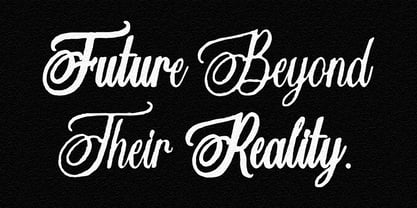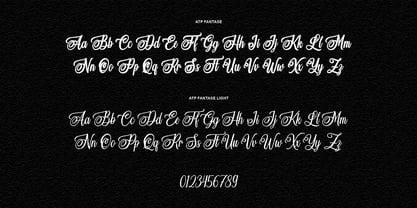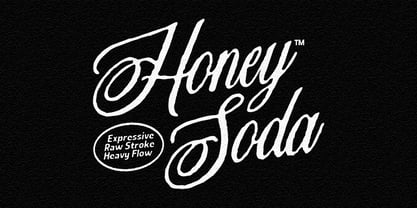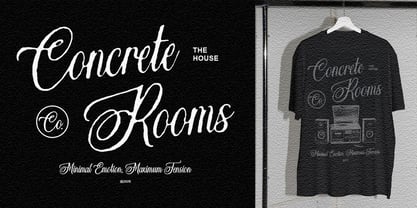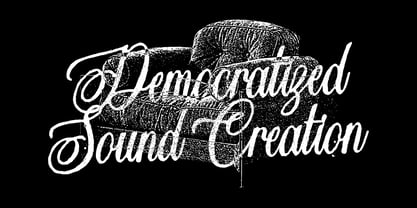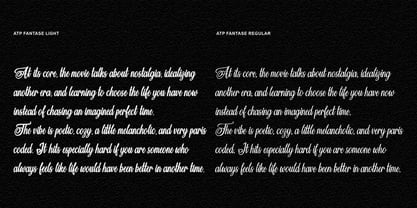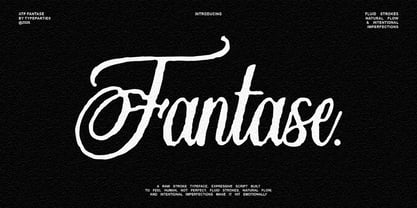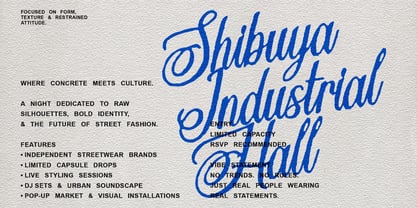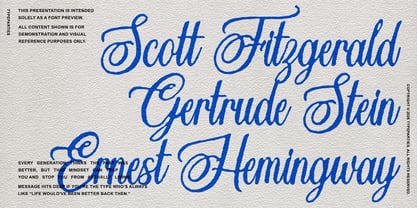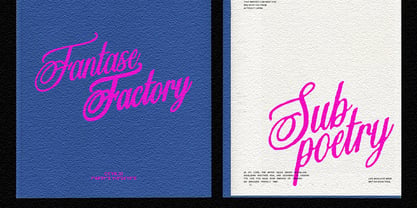
ATP Fantase
The ATP Fantase Font Family was designed by Thufail Al ghifary and published by Typeparties. ATP Fantase contains 2 styles and family package options. More about this family
Fantase is a raw, expressive script designed to evoke a human touch rather than perfection. With fluid strokes and a natural flow, it embraces intentional imperfections that resonate emotionally, creating a personal rather than polished feel. Each curve is purposefully crafted to feel alive, enhancing its appeal for various applications. Fantase is particularly effective for branding, editorial headlines, album covers, fashion visuals, and personal storytelling, where emotional tone is just as crucial as readability. This font family offers a unique blend of character and charm, making it a standout choice for creative projects that seek to connect on a deeper level.